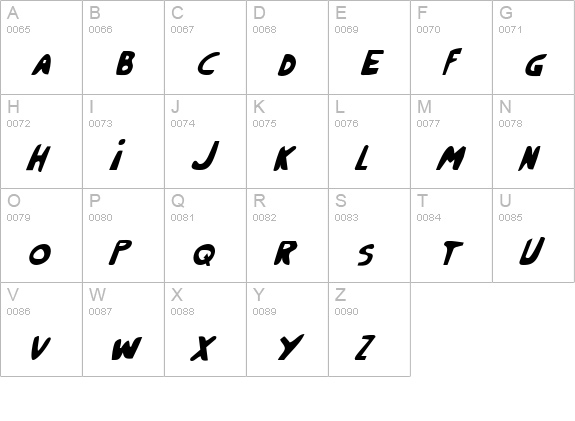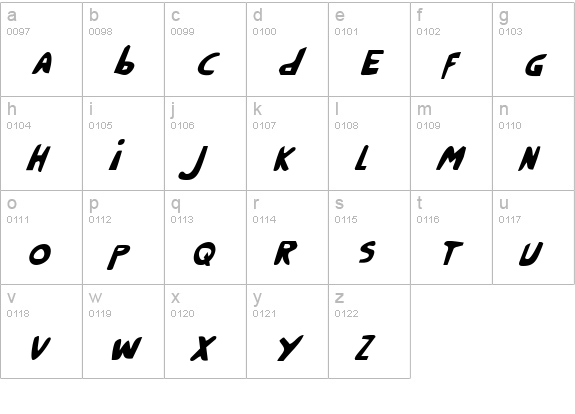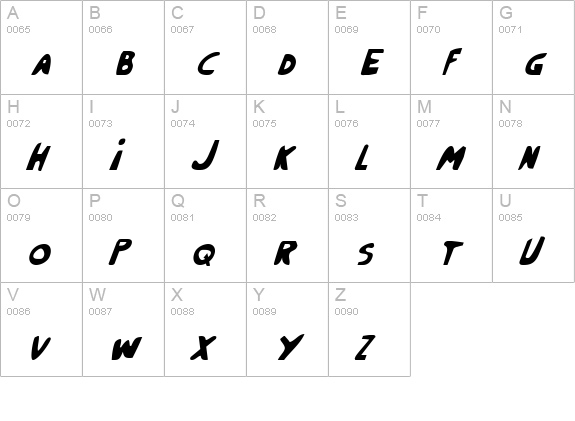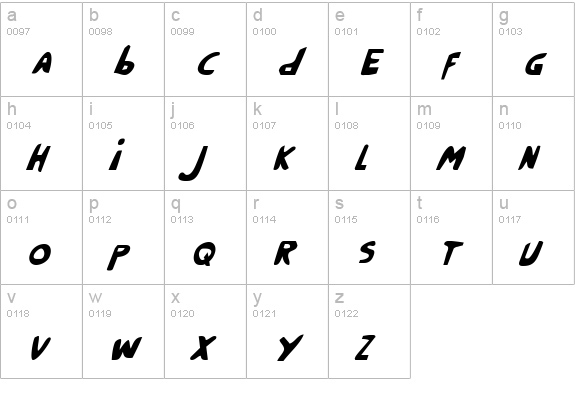
Crappity-Crap-Crap CondItal font is a quirky and playful typeface that adds a touch of whimsy to any design project. With its unique and irregular letterforms, this font is perfect for creating eye-catching headlines, posters, or social media graphics. Whether you're looking to inject some fun into your designs or simply want to stand out from the crowd, Crappity-Crap-Crap CondItal font is sure to do the trick. Best of all, this font is available for free download at FontsMarket.com. So why wait? Add a dose of creativity to your next project with Crappity-Crap-Crap CondItal font today!